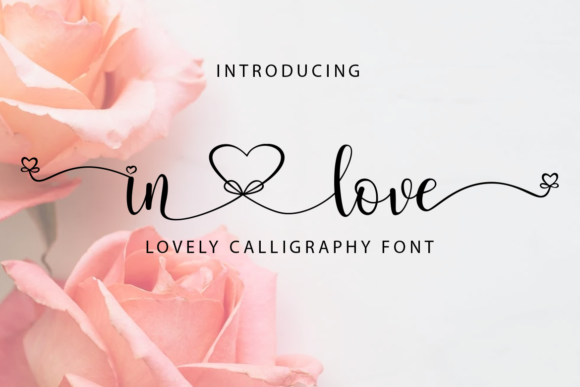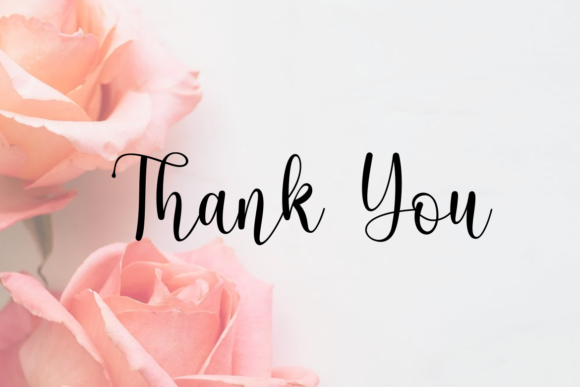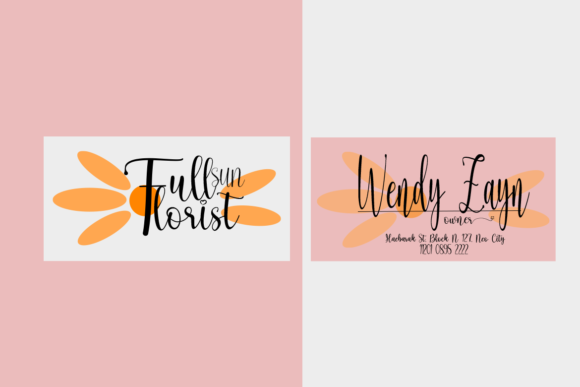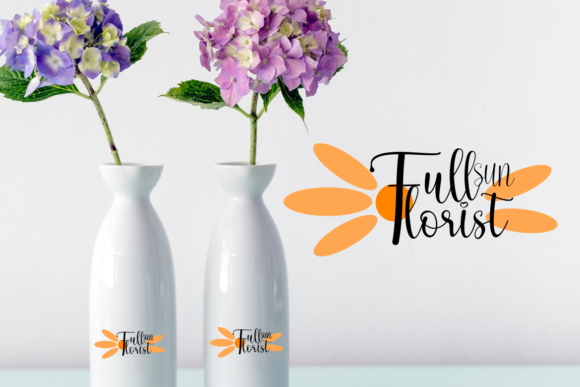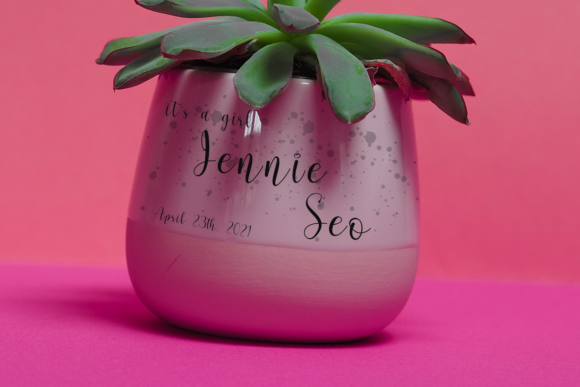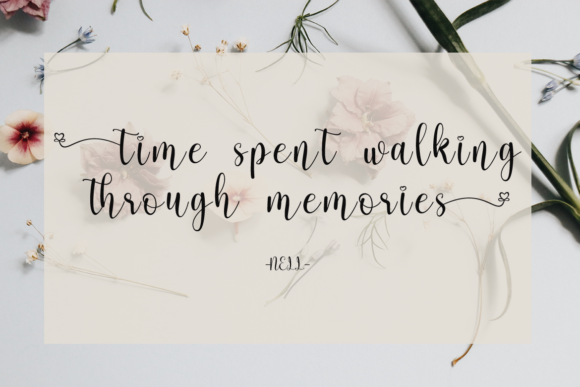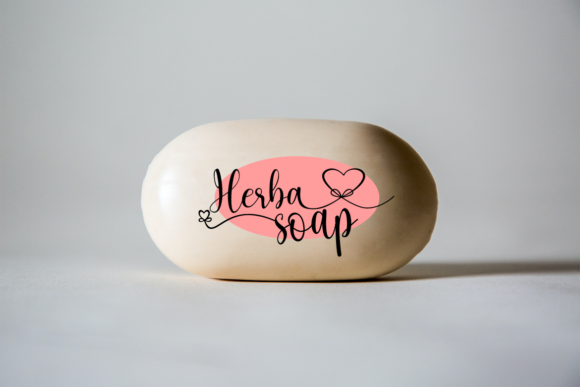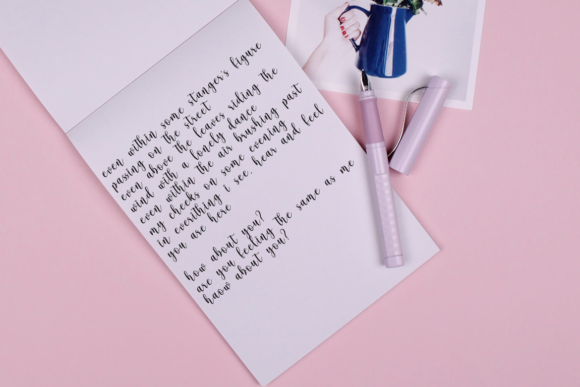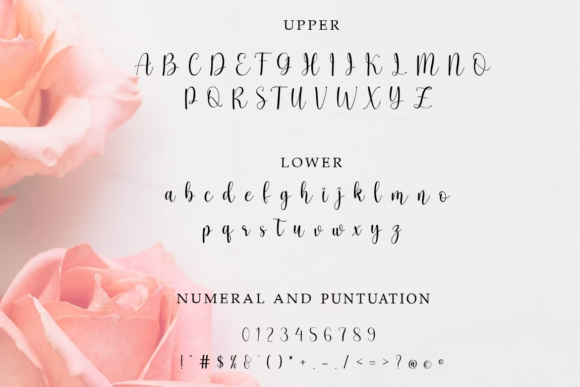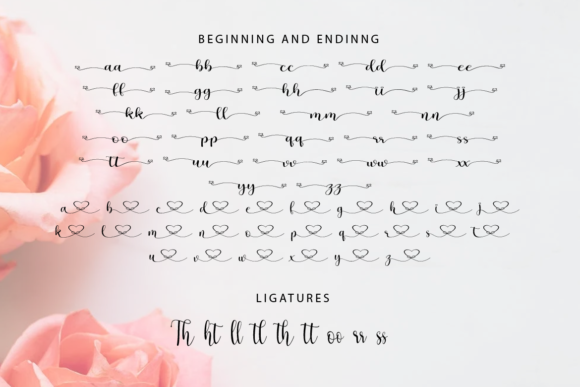
In Love Font
About In Love Font
In Love feels incredibly romantic and beautiful. It is PUA encoded which means you can access all of the glyphs and swashes with ease! It features a varying baseline, smooth lines, gorgeous glyphs and stunning alternates. Fall in love with its incredibly versatile style and use it to create spectacular designs!